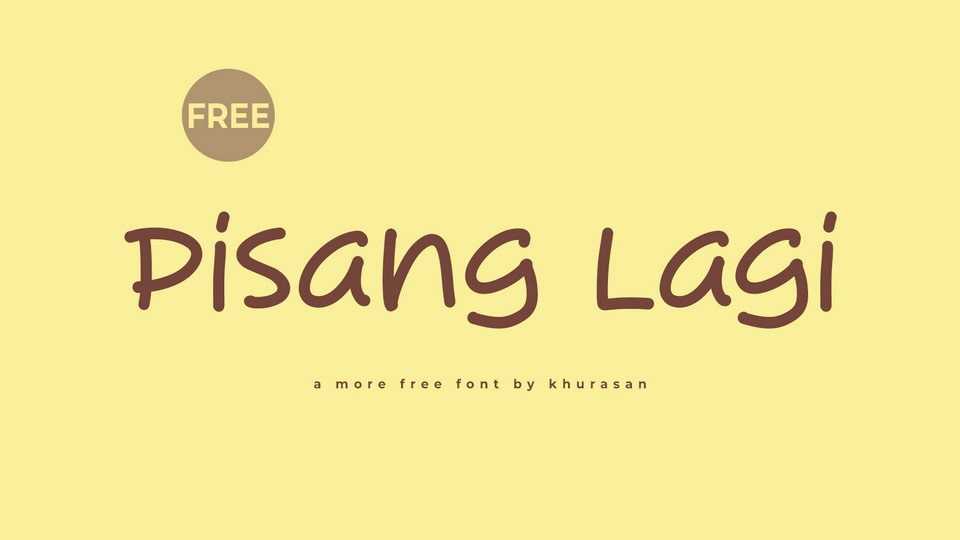
Download Pisang Lagi font, a playful and delightfully quirky handwritten typeface that adds a burst of personality to your designs. Each letter in Pisang Lagi dances across the page with a whimsical charm, creating an animated and lighthearted feel